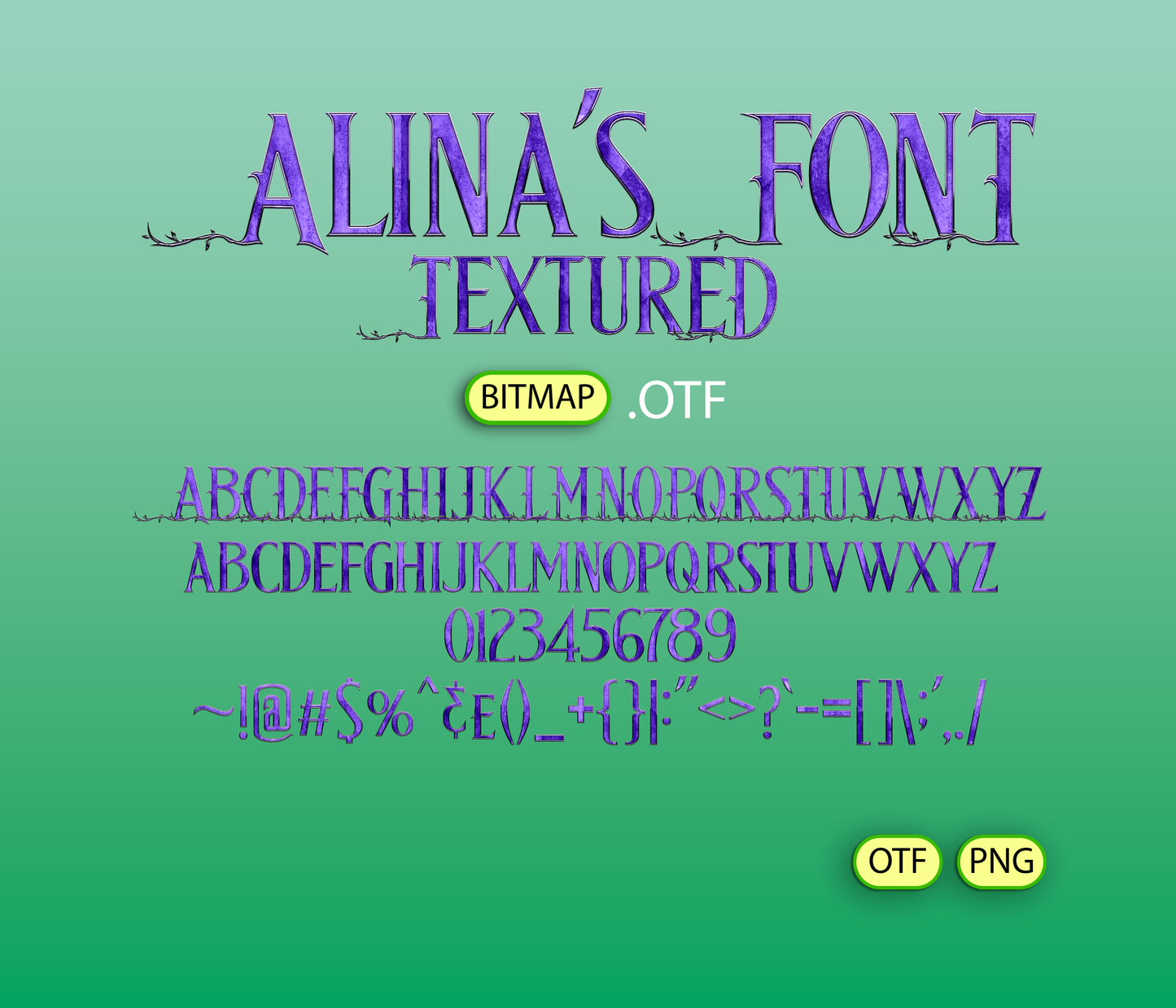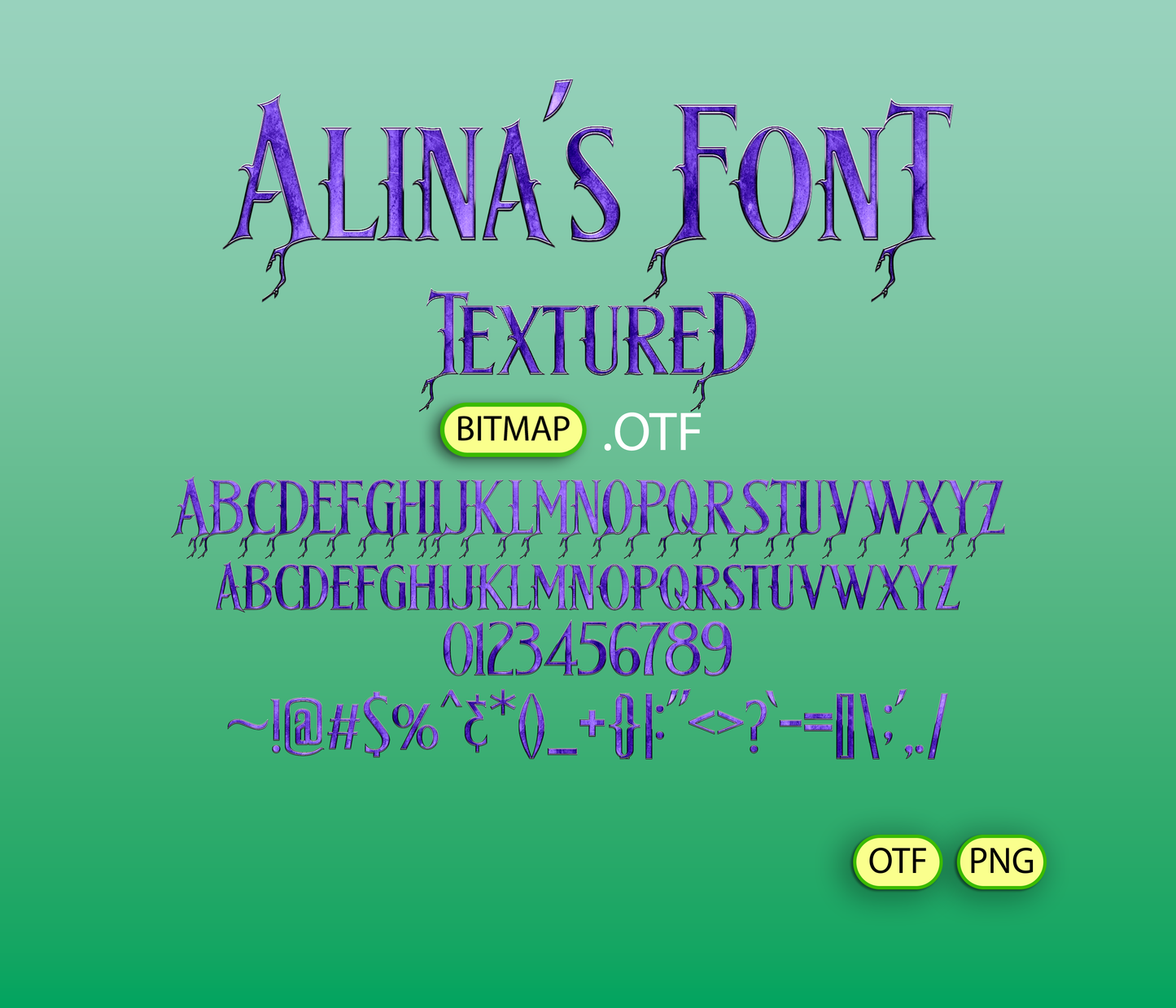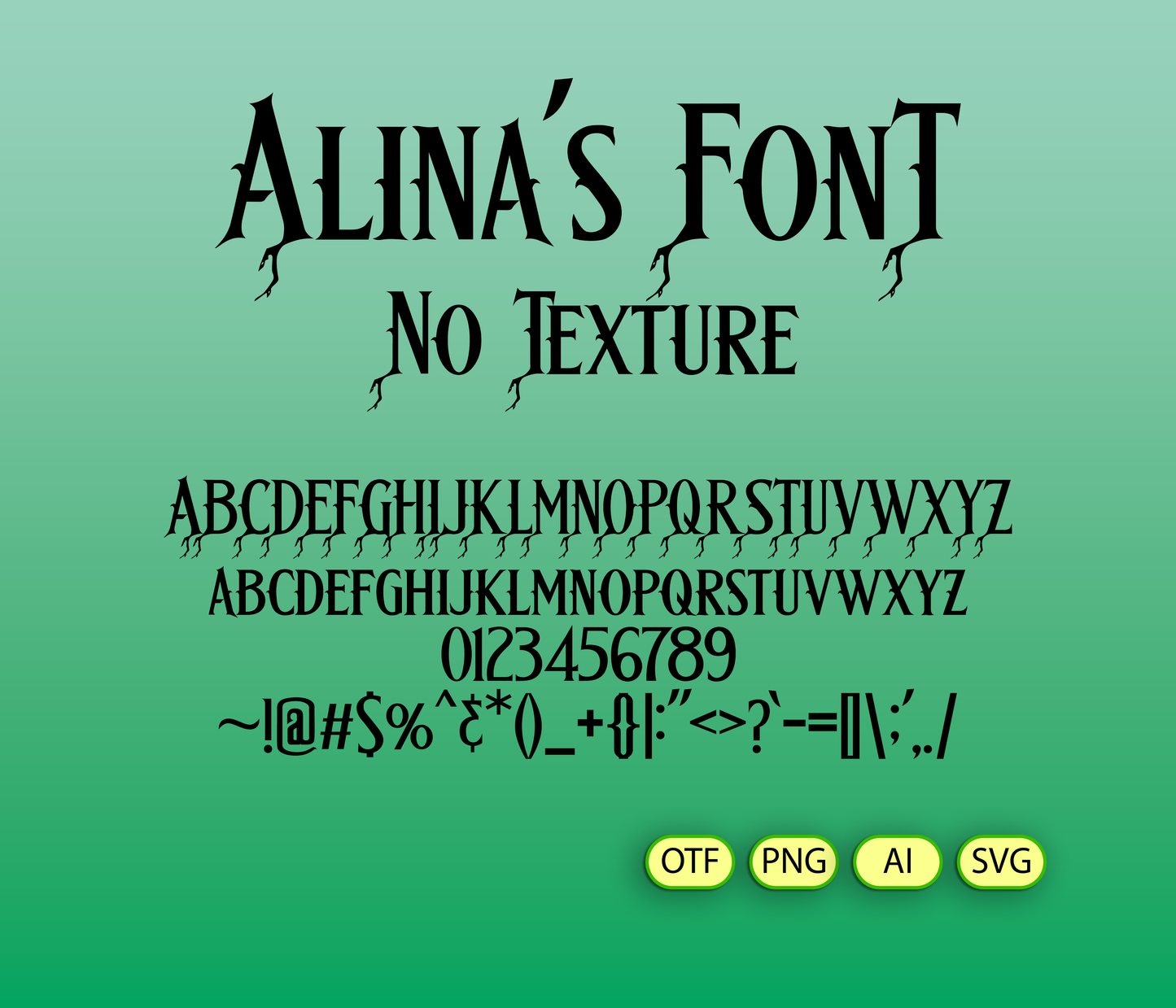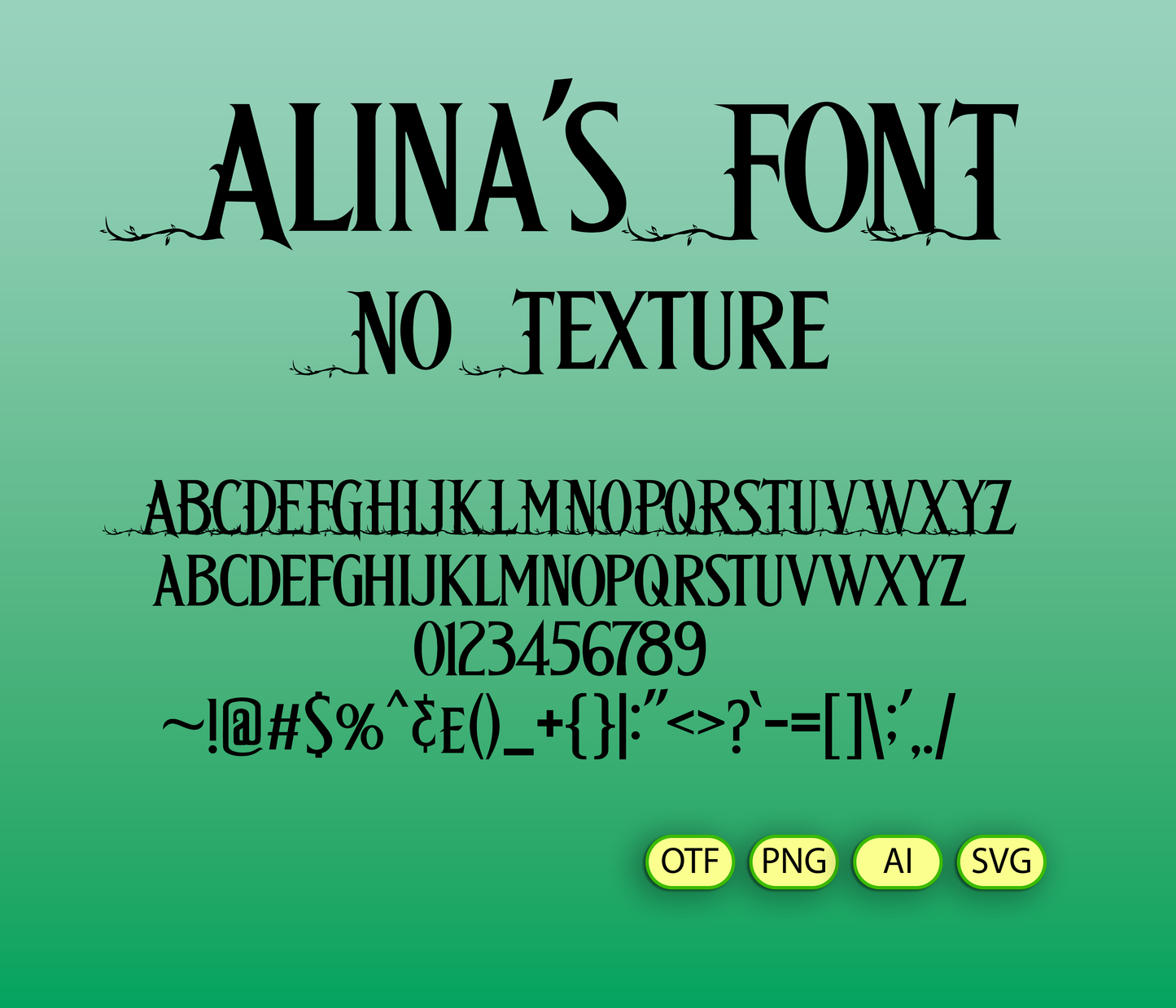
Mischievous Witch Font Textured Bundle
Mischievous Witch Typography Set
Step into the world of magical mischief with our Mischievous Witch Typography Set, inspired by the catchy tune of a certain crafty enchantress from a popular superhero sitcom. This font captures the essence of retro TV themes with a wickedly fun twist, perfect for fans, designers, and creatives looking to add a touch of magical nostalgia to their projects.
Our Mischievous Witch Typography features playful, retro-inspired characters with a hint of magical flair, reflecting the blend of classic sitcom charm and supernatural themes. Ideal for:
The Mischievous Witch Typography includes both textured and non-textured variants, ensuring compatibility with all design software, including Canva. This versatility allows for easy incorporation into designs for users of all skill levels.
Our font pays homage to the delightfully deceptive world of magical sitcoms, empowering your designs with its clever and engaging spirit. Whether you're crafting fan art, designing themed events, or adding a touch of retro magic to personal projects, this font communicates the essence of classic TV charm with a supernatural twist.